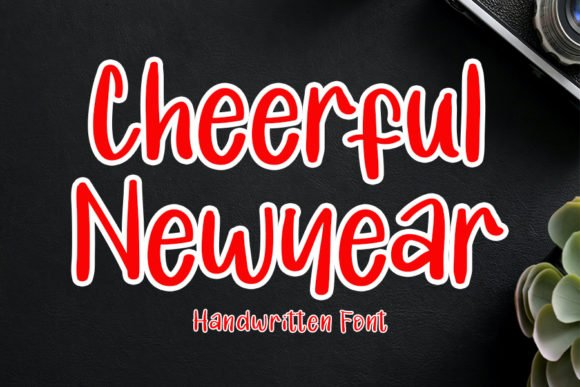
Ring in the New Year with Style: The Cheerful New Year Font
As the clock strikes midnight and the fireworks light up the sky, many of us feel an overwhelming urge to create something special to commemorate the start of a new year. We pull out our sketchbooks, laptops, or design software, and the ideas begin to flow. But, what if you could take your New Year’s design to the next level with a font that embodies the spirit of celebration and joy?
Enter the Cheerful New Year Font, a delightful handwritten font that’s perfect for adding a playful touch to your designs. With its dancing baseline and whimsical lines, this font is a designer’s dream come true. Whether you’re creating a logo, heading, or poster, the Cheerful New Year Font is sure to bring a smile to your face and a touch of magic to your design.
Cheerful New Year Font Key Features
- Font Style: A unique, festive font designed to evoke the spirit of New Year’s celebrations.
- Unique Characteristics: Features bold, colorful, and playful letterforms with decorative elements, making it perfect for creating eye-catching designs.
Designer Review: Cheerful New Year Font
The Cheerful New Year Font is a delightful, hand-drawn font that captures the essence of celebration and festivity. ✨ The unique, playful style of the font makes it perfect for greeting cards, party invitations, and other special occasions. The font’s versatility shines through in its wide range of letterforms, each carefully crafted to evoke a sense of joy and excitement.
Some notable strengths of the font include:
- ✨ Playful and whimsical design that adds a touch of personality to any project.
- ✨ Perfect for creating eye-catching headings and titles that draw attention.
- ✨ Friendly and approachable tone that makes it suitable for various occasions.
- ⚠️ Limited font weights and styles, which may not be suitable for complex, multi-level designs.
- ⚠️ May not be the best choice for formal or professional projects where a more traditional font is required.
Overall, I think the Cheerful New Year Font is a great addition to any designer’s toolkit. While it may have some limitations, its unique style and versatility make it a standout choice for projects that require a touch of whimsy and personality.
For the most effective use of the Cheerful New Year Font, consider the following tips:
– Use it for festive designs, such as holiday cards and party invitations.
– Combine it with bold, bright colors to create a lively atmosphere.
– Experiment with different font sizes and styles to add visual interest.